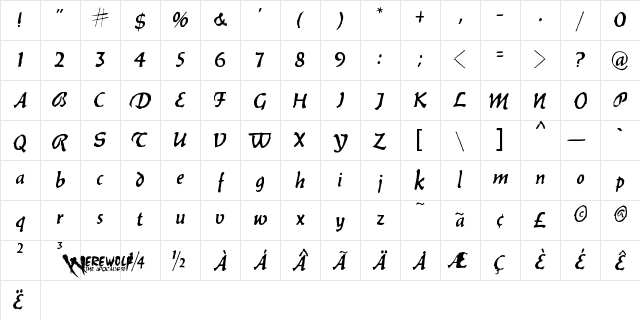
. Werewolf Regular
Design Context for . Werewolf
. Werewolf is a composed and adaptable typeface that performs quietly and consistently across a wide range of design contexts.